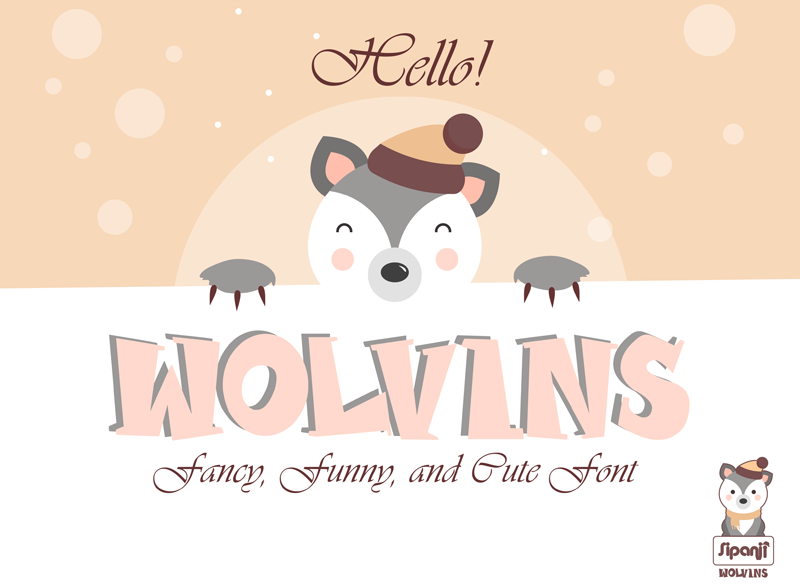
Font name: | Wolvins |
Author: | Straightwell |
Wolvins is a funny, bold and cute display font with a unique twist. Get inspired by its unique feel, and turn add a lovely charm to any crafts project! This font is free for personal use, Please purchase a commercial license here : https://www.creativefabrica.com/product/wolvins/ |